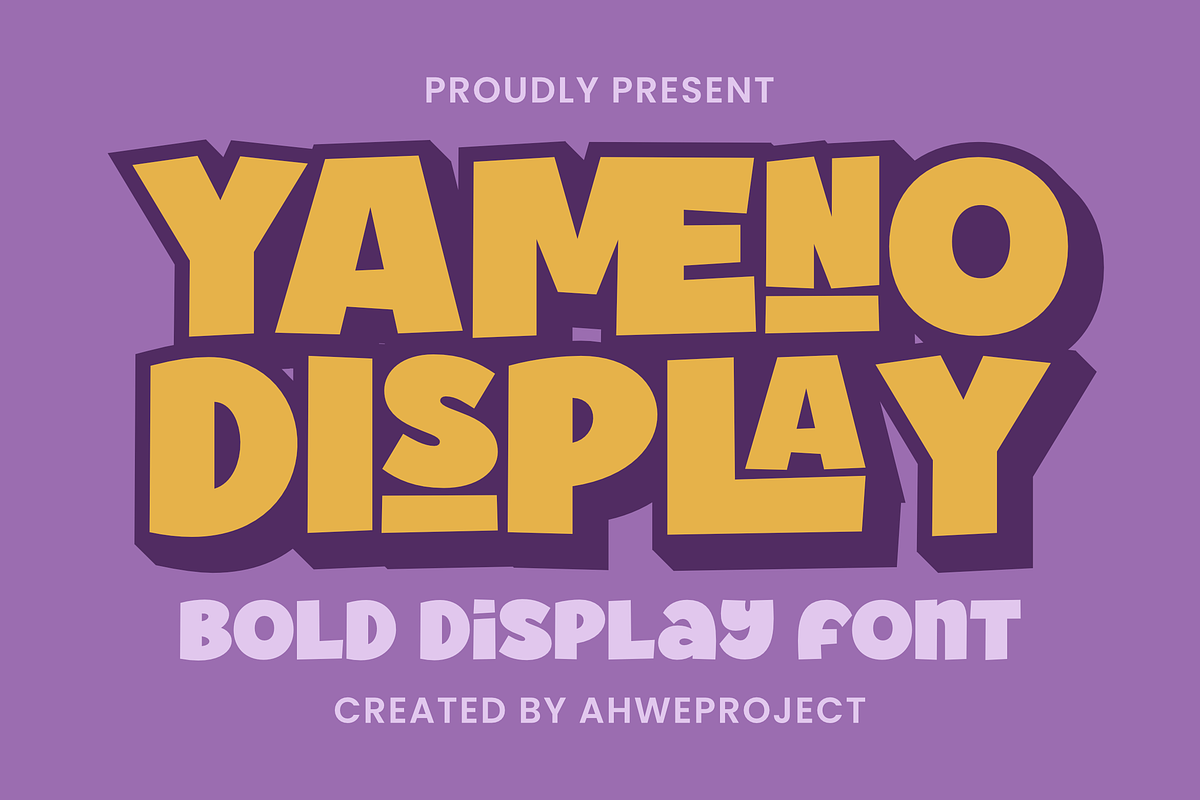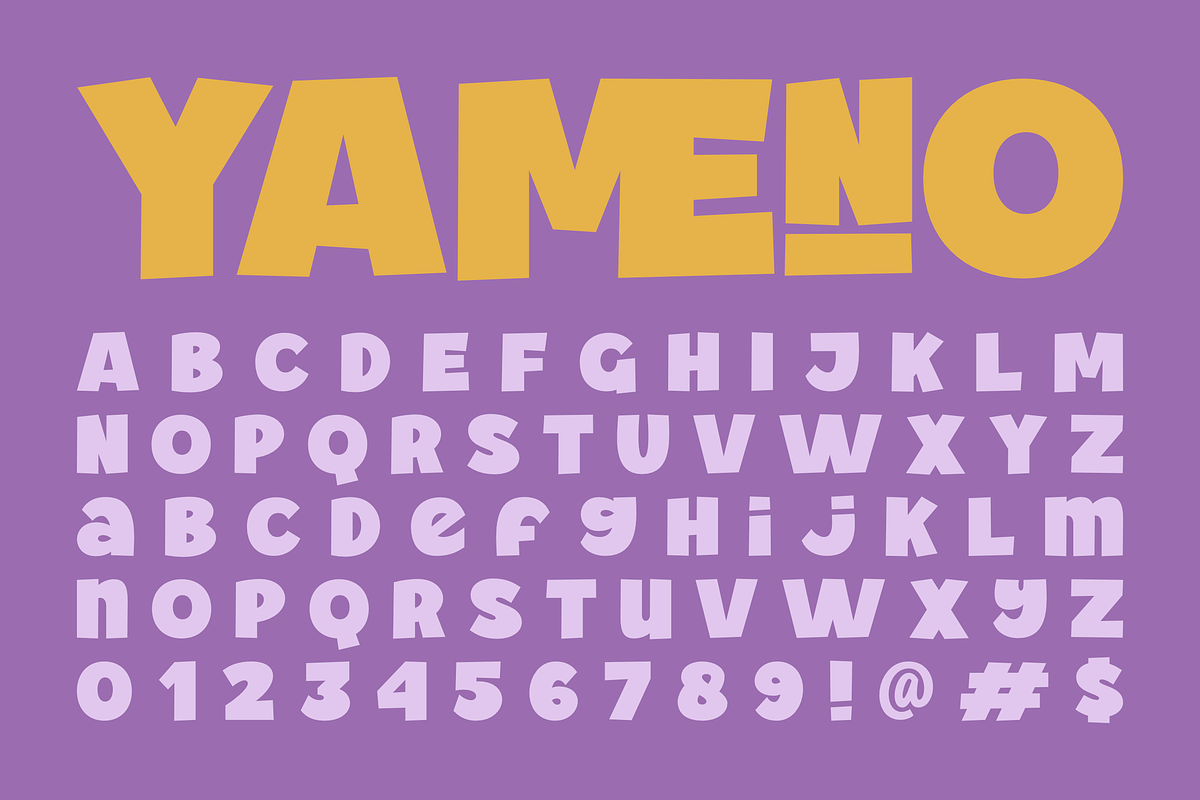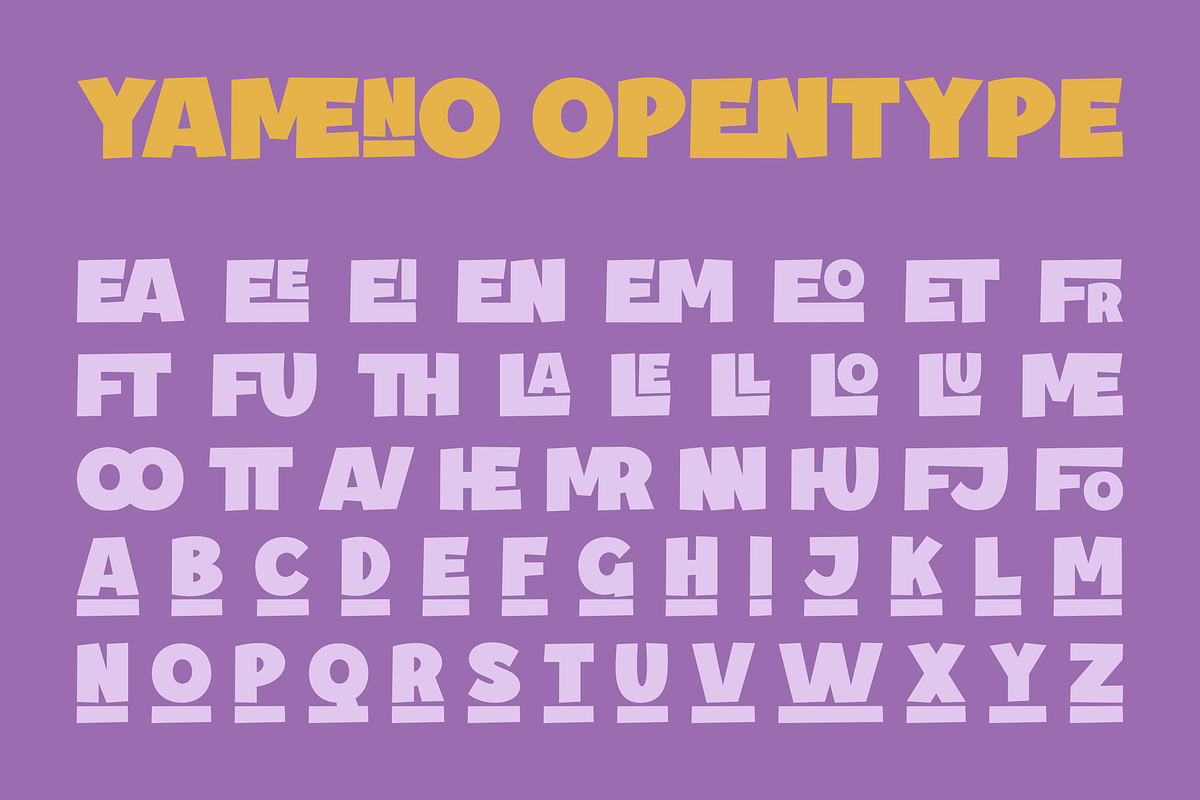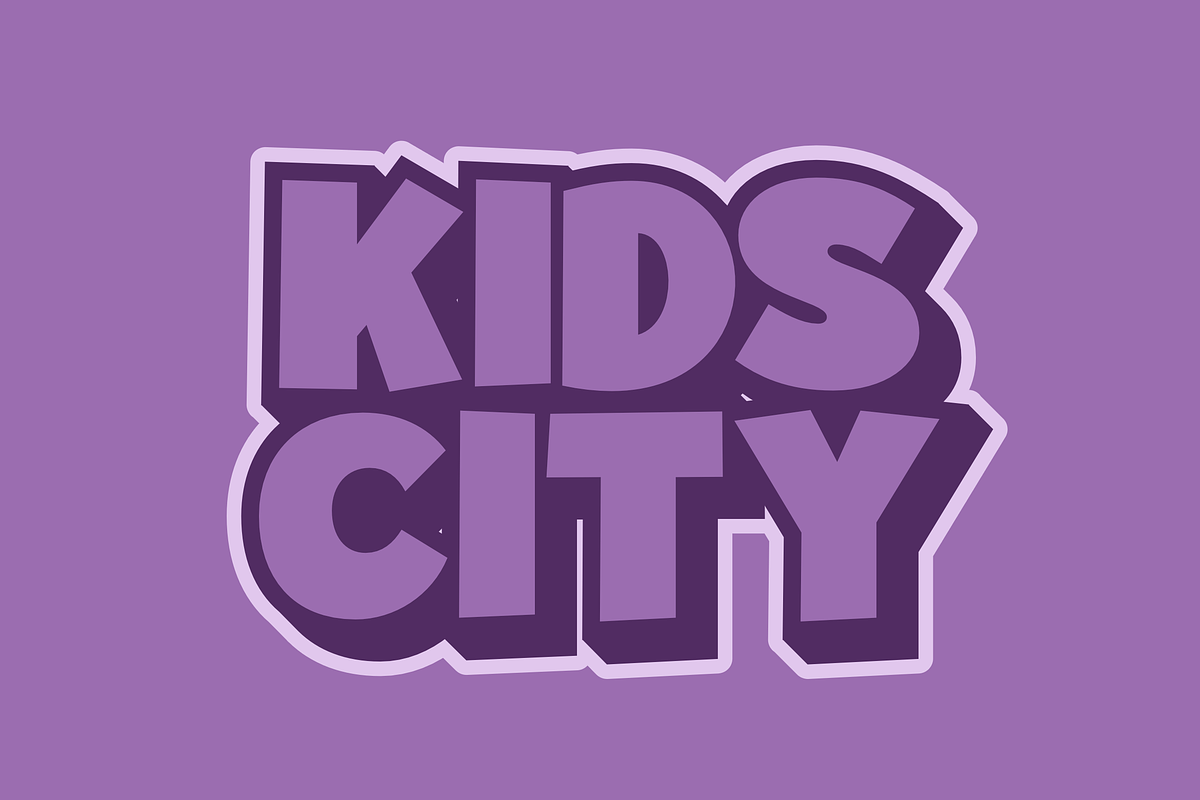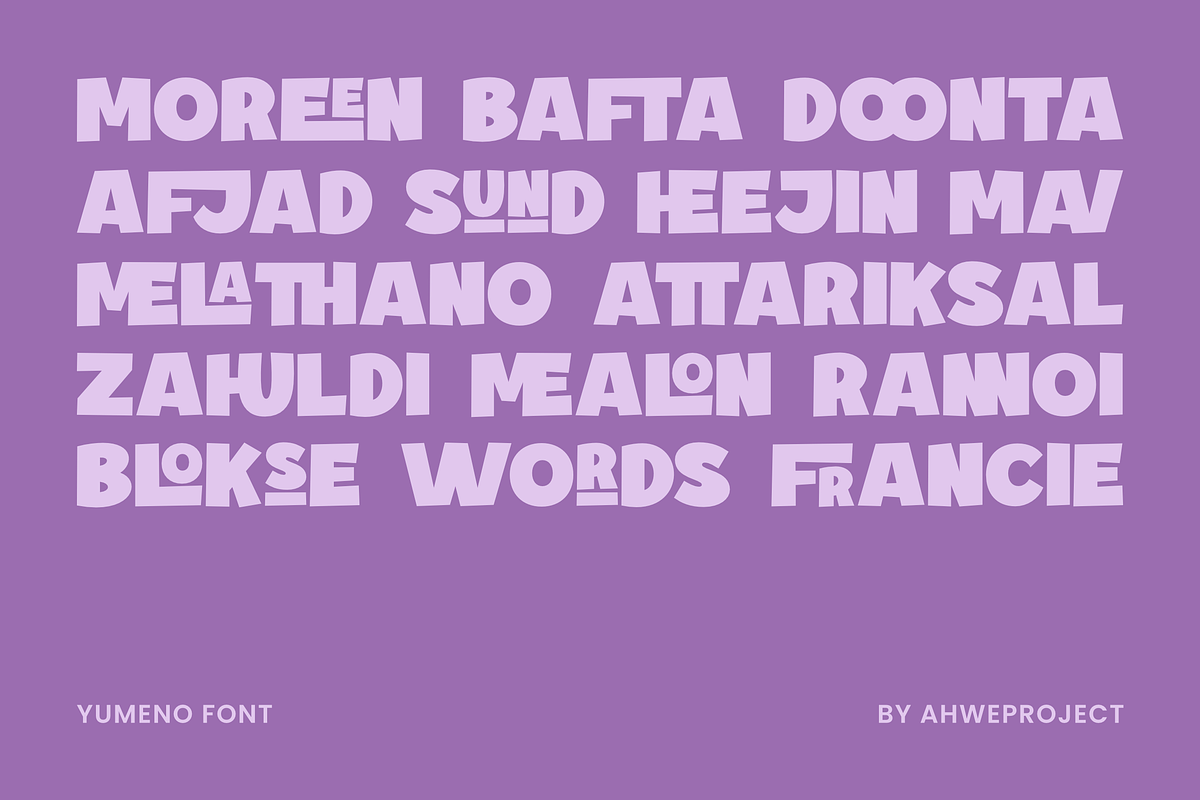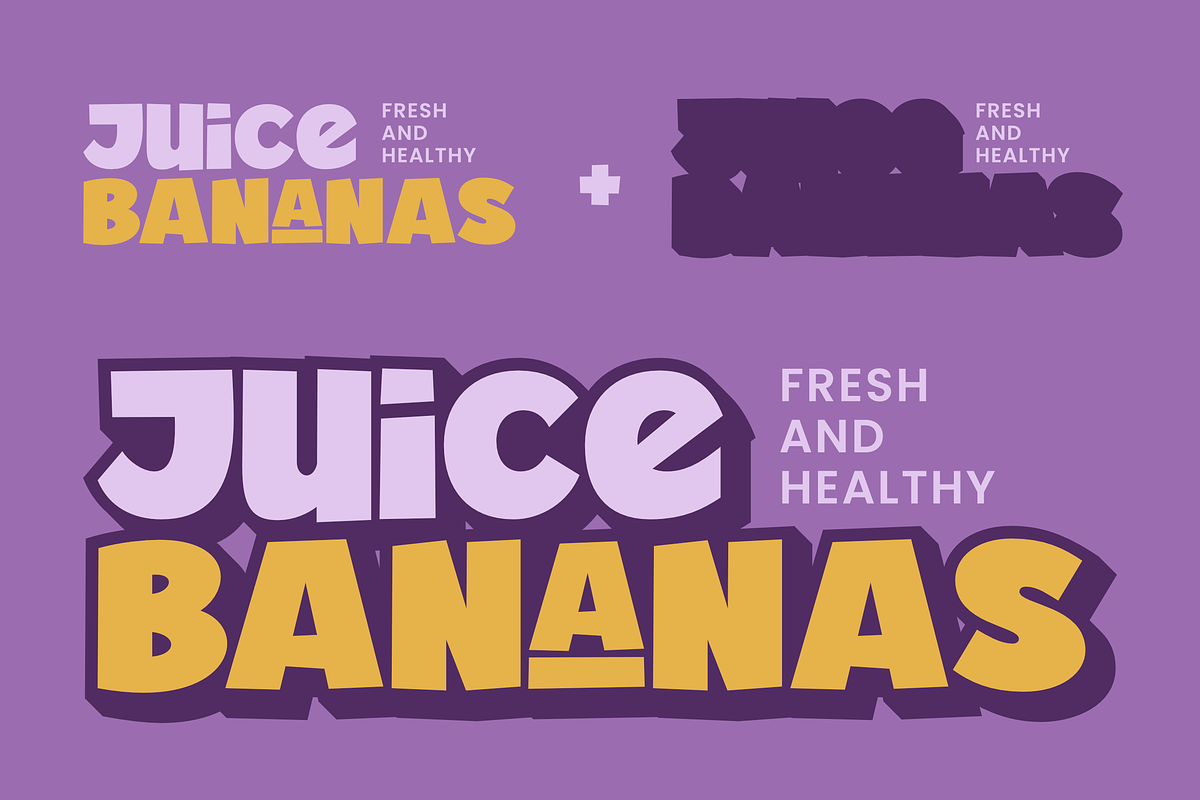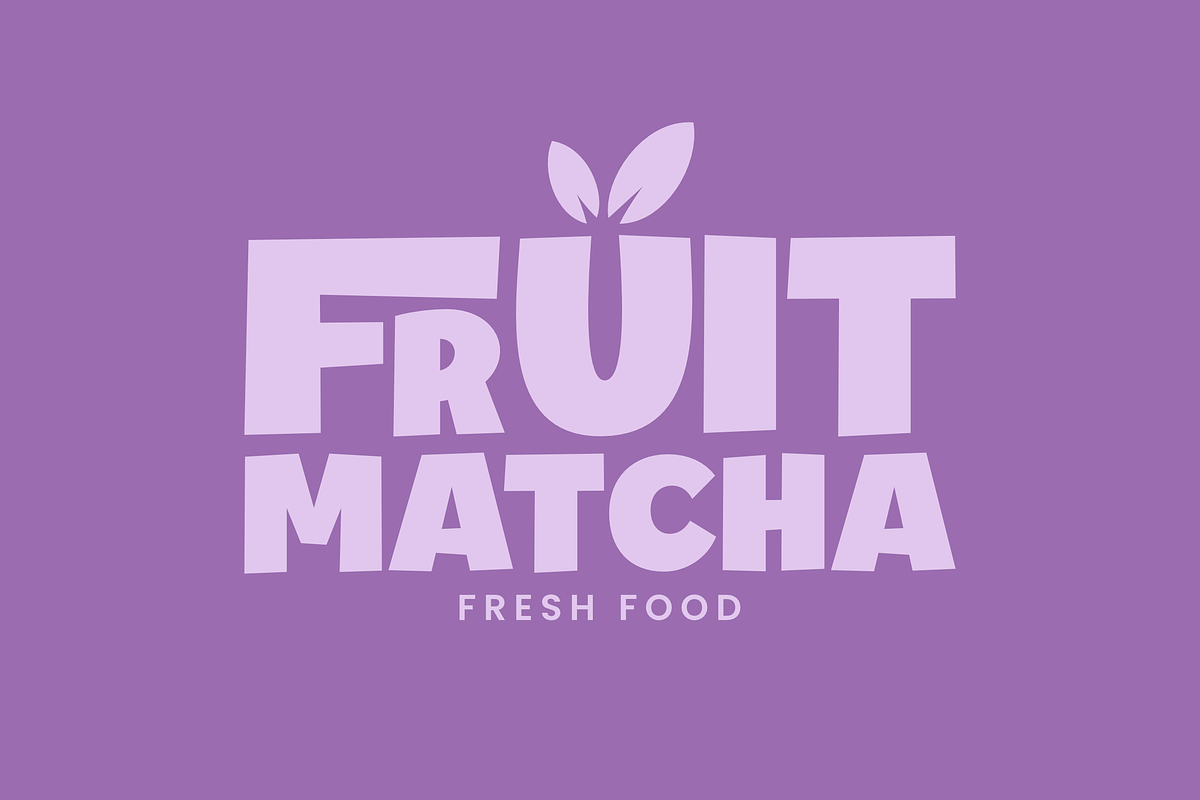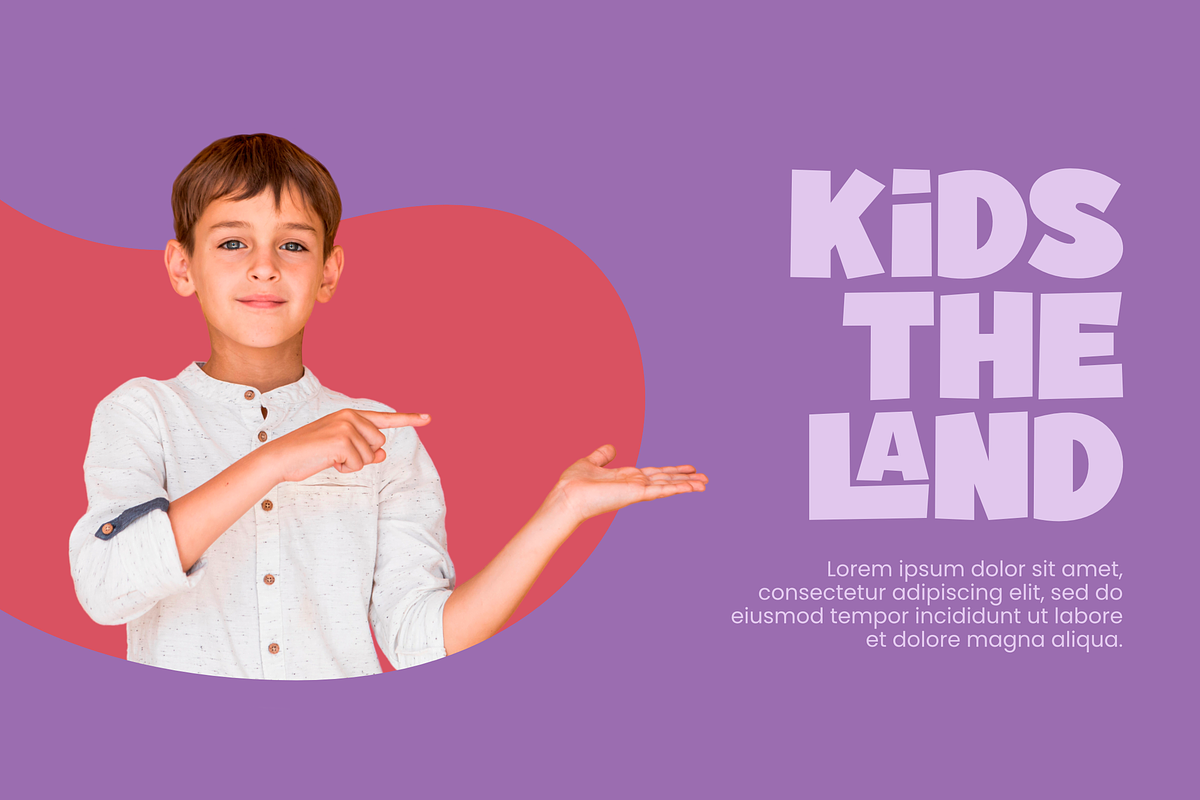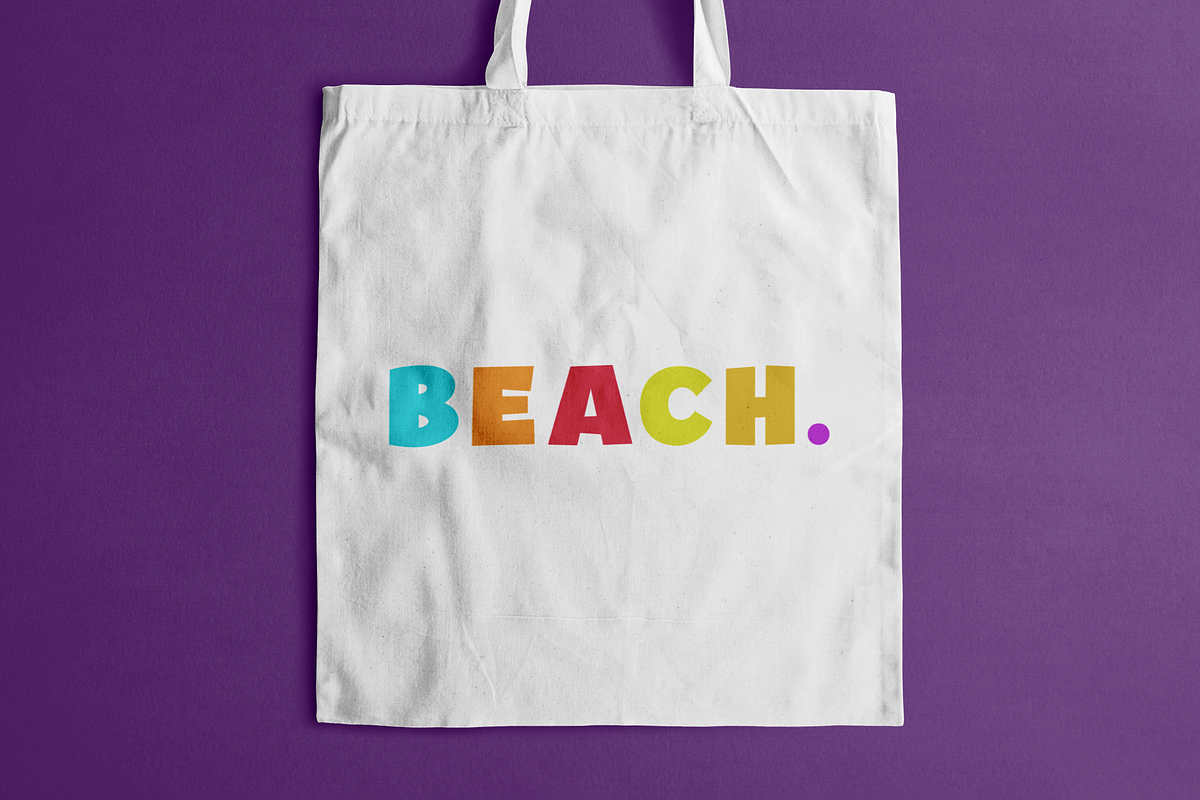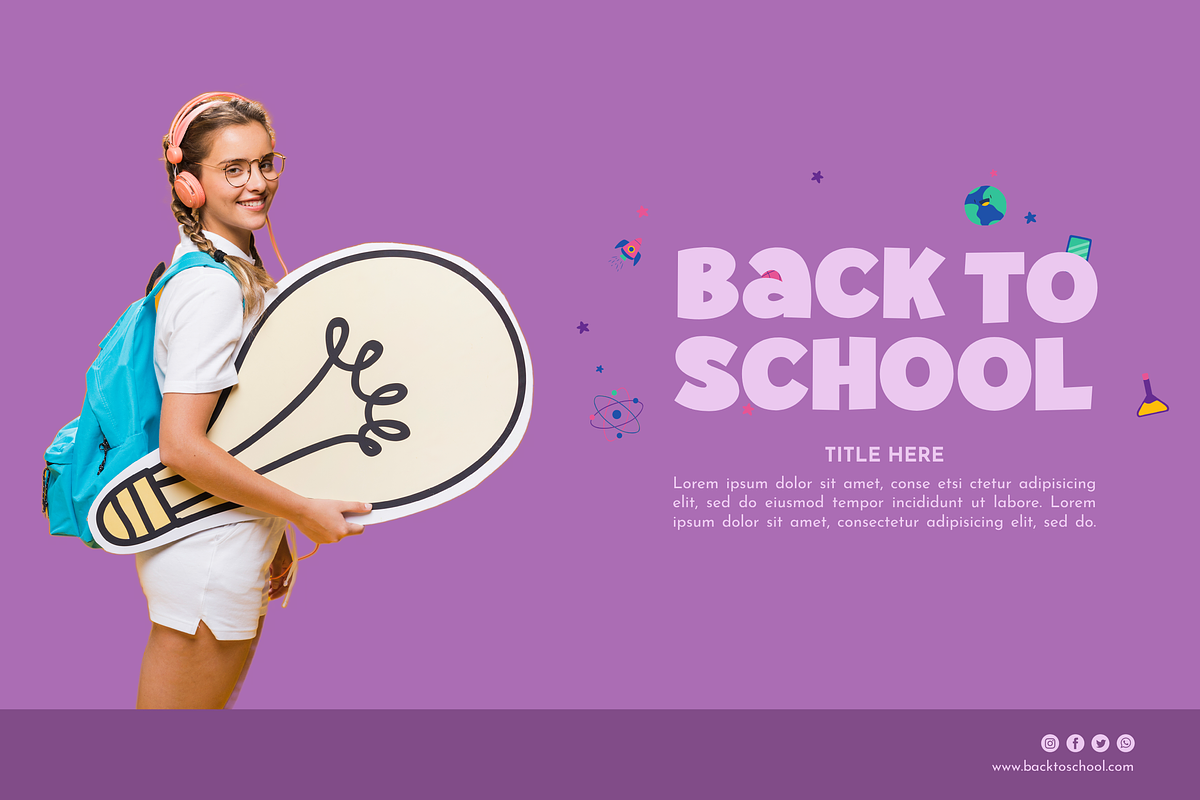
Yameno
Yameno is a bold display font designed to have a fun touch to any design. Its bold letterforms are perfect for titles, headlines, branding and any design that needs appeal. This font is PUA encoded, which means you can access all of the glyphs and swashes with ease!